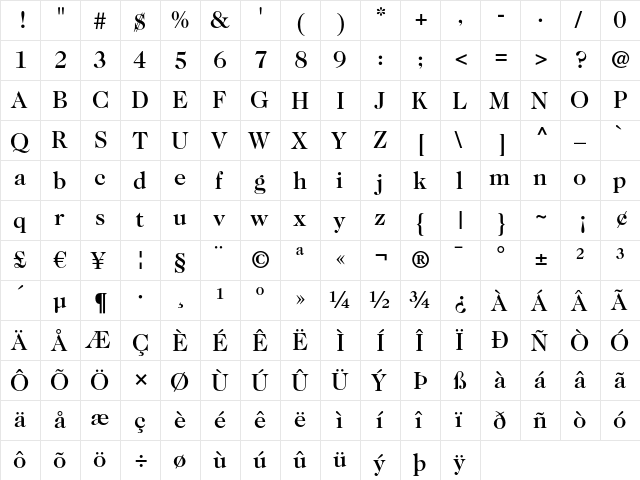
ITC Caslon 224 LT Medium
Design Context for ITC Caslon 224 LT Typeface
ITC Caslon 224 LT takes a measured approach to typography — its balanced proportions and neutral character make it a reliable workhorse for both digital and print work. The delicate stroke weight brings airiness and refinement to layouts.
Pro Tip: Use ITC Caslon 224 LT in both headline and body roles to test its range before committing to a single application.